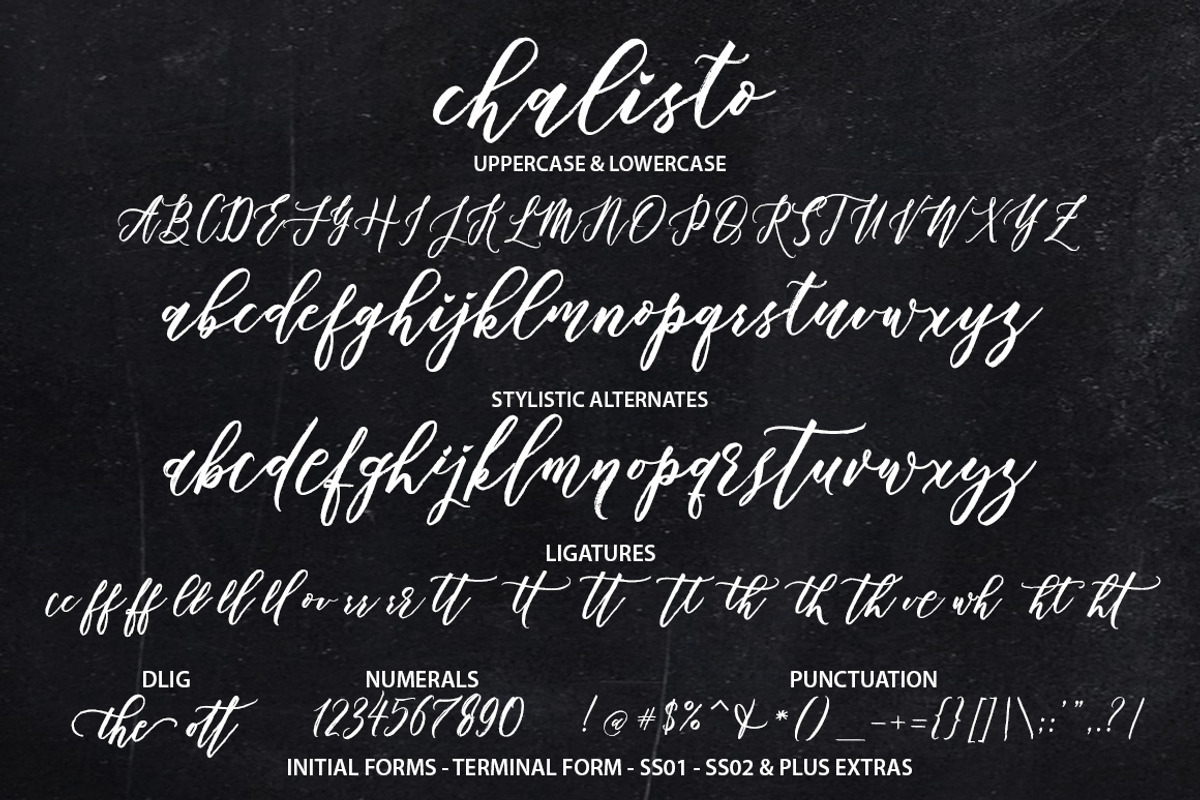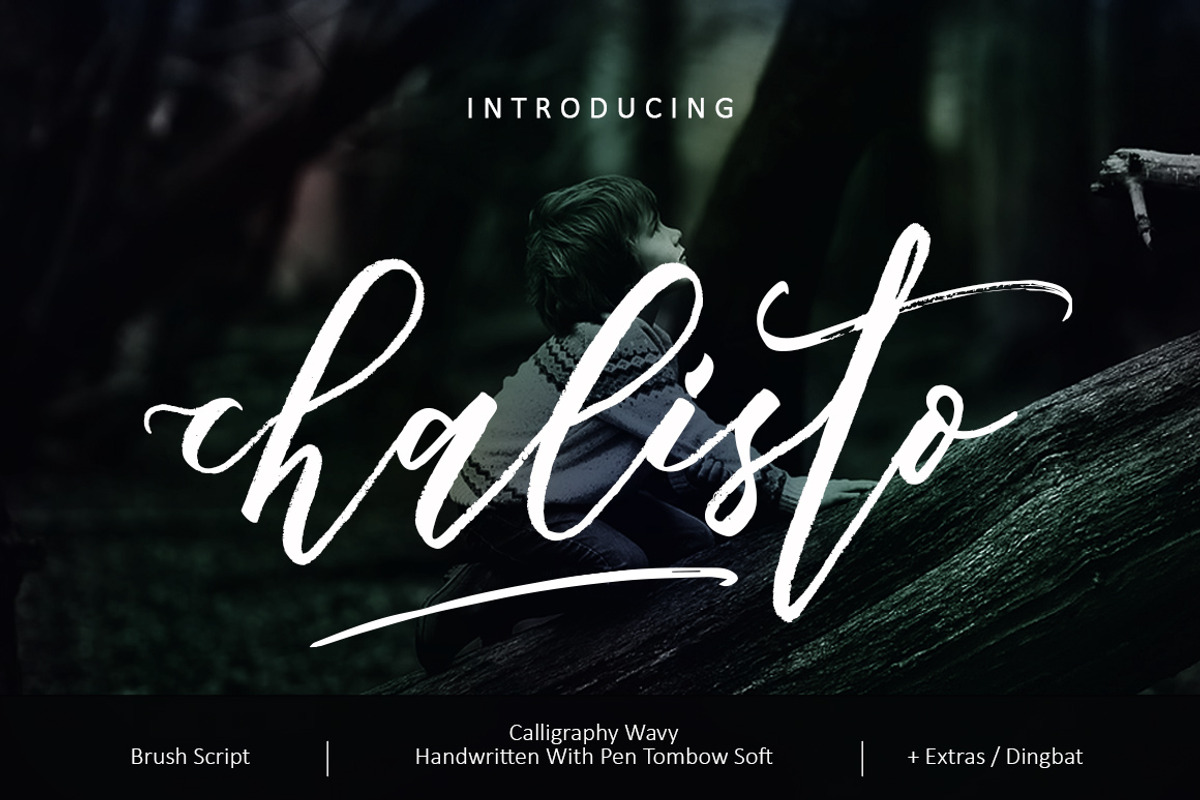
Chalisto Script
I N T R O D U C I N G
Chalisto Script a Calligraphy Handwritten font with Brush Pen Tombow Soft. kind of a dancing calligraphy or Calligraphy wavy style, perfect for branding projects, packaging products - wedding, invitation, business cards - logos and etc.
Chalisto Script It contains a full set of lowercase & uppercase, a large range of punctuation, numerals, and multilingual support. The font also contains several ligatures, Discretionary Ligatur, stylistic alternates, Initial Forms (INIT), Terminal Form (FINA), Stylistic Set (ss01 - ss02) for you who have opentype capable software (e.g. Photoshop/Illustrator, Corel Draw).
Chalisto Script allows you to create custom dynamic text. you can access by turning on; Stylistic Alternates, Initial Forms, Terminal Form (FINA), as well as ligatures in Photoshop, Adobe Illustrator, Adobe InDesign or through a panel of glyphs such as Adobe Illustrator, Photoshop CC, Let's switch from the reguler character into character alternative to get the text with the layout of your dreams.
Features Basic Latin A-Z and a-z Numbers Symbols